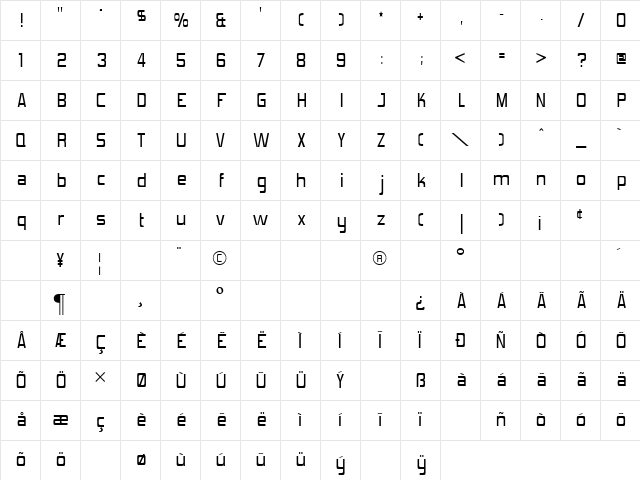
Complete Forgotten Futurist Regular glyph index. Displaying only characters natively supported by Forgotten Futurist Regular font.
Forgotten Futurist has a distinctly futuristic character, with geometric precision and clean angles that feel at home in technology, gaming, and sci-fi contexts.
Pro Tip: Try Forgotten Futurist with generous letter-spacing in UI labels and navigation - the geometric forms benefit from room to breathe.